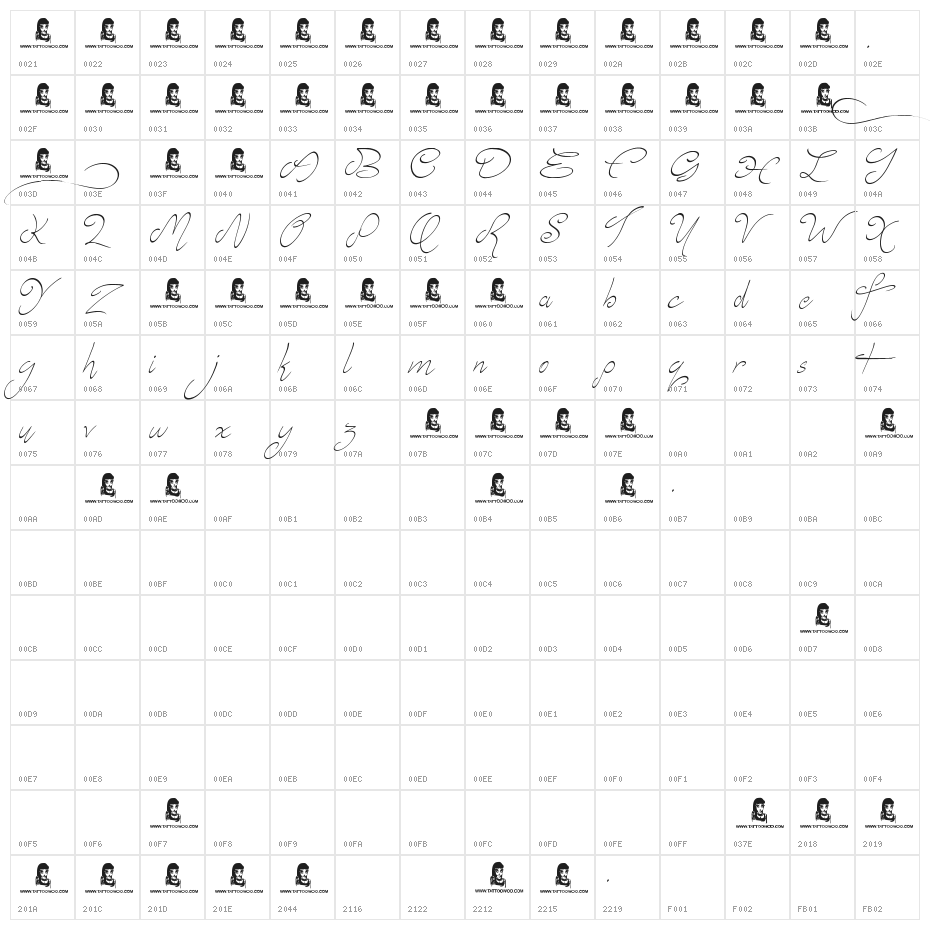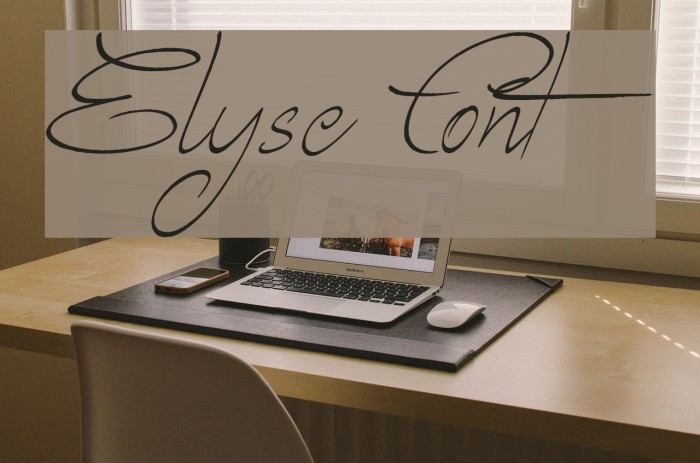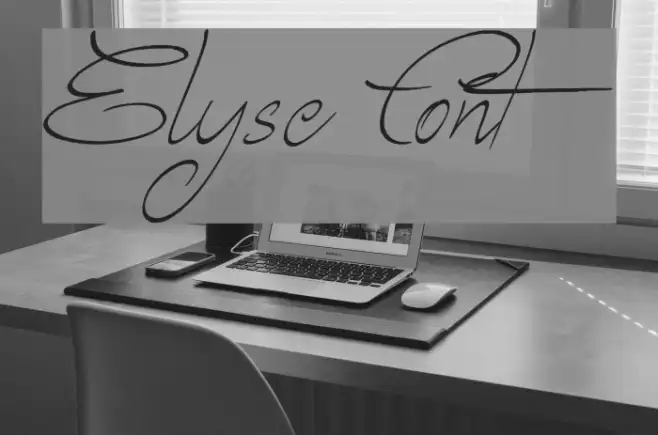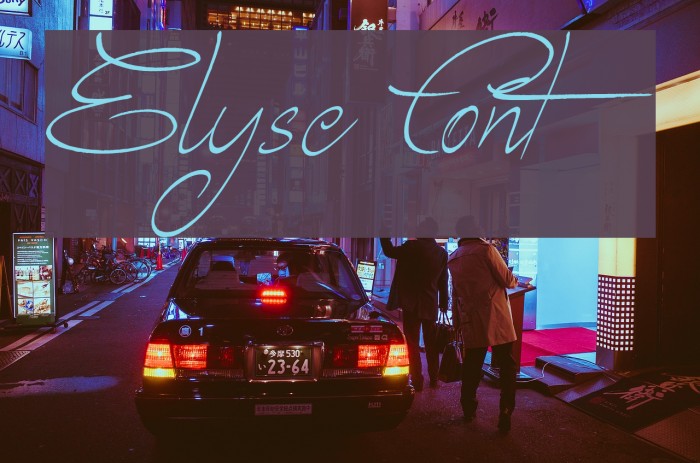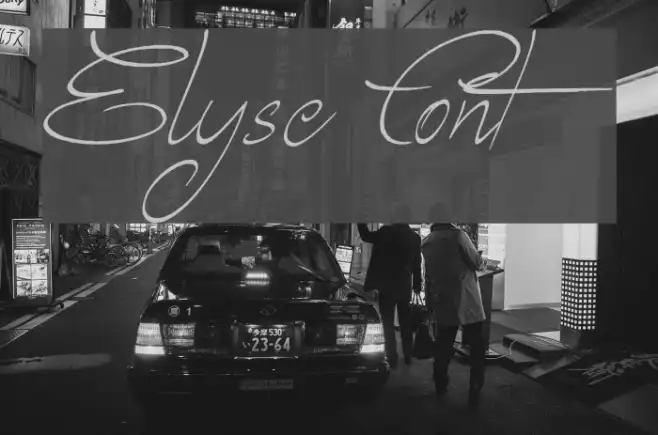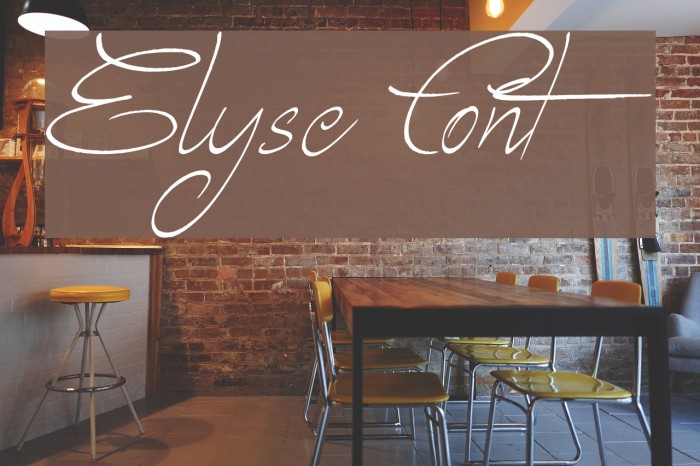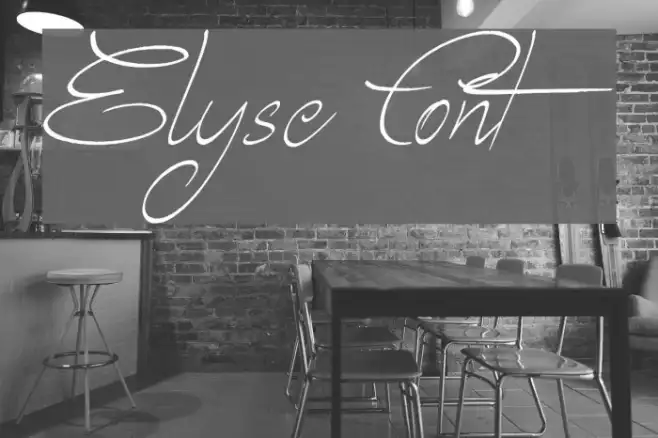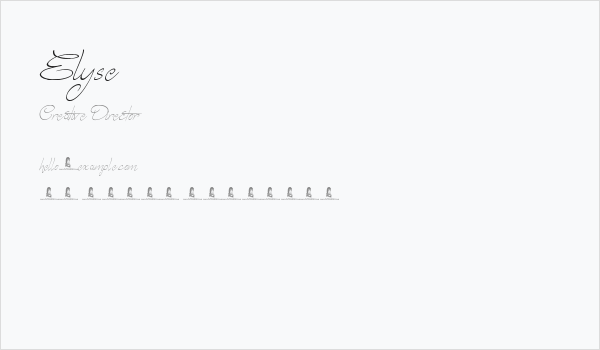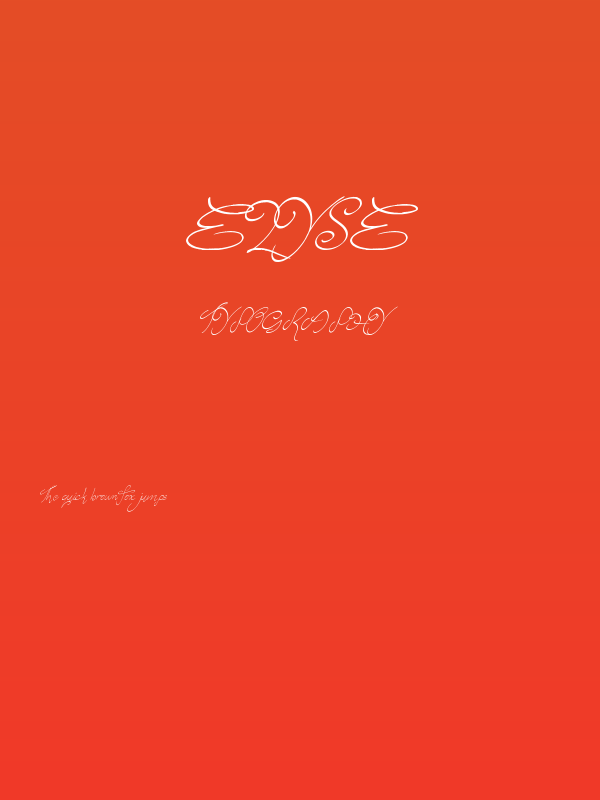
Elyse Font
Elyse Description
This font features an elegant and flowing script style, characterized by its intricate and connected letterforms. The uppercase letters exhibit a graceful, looping design, while the lowercase letters maintain a consistent fluidity, enhancing the overall aesthetic. The font's strokes are thin and delicate, contributing to a sophisticated and refined appearance. Its cursive nature suggests a handwritten quality, making it suitable for projects that require a personal touch. The font's unique style is both artistic and legible, offering versatility for various design applications.